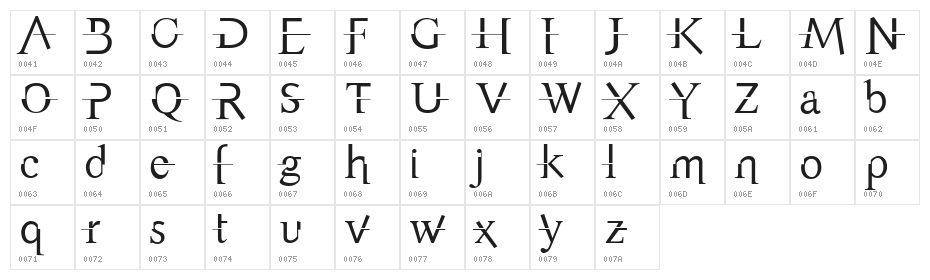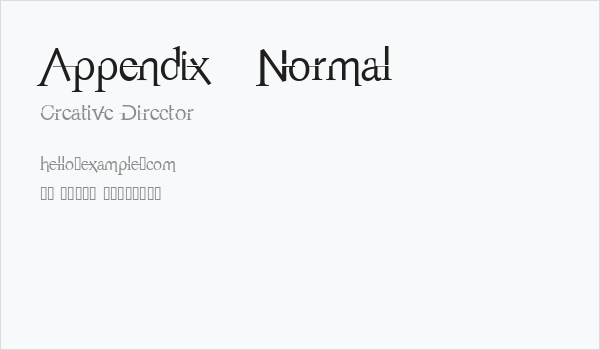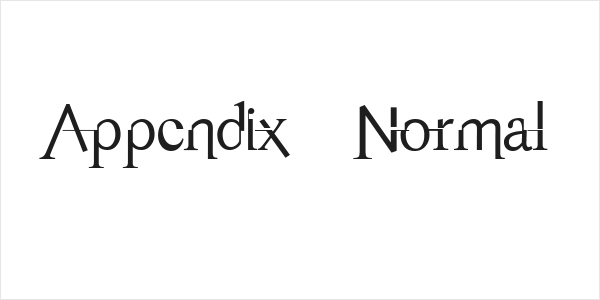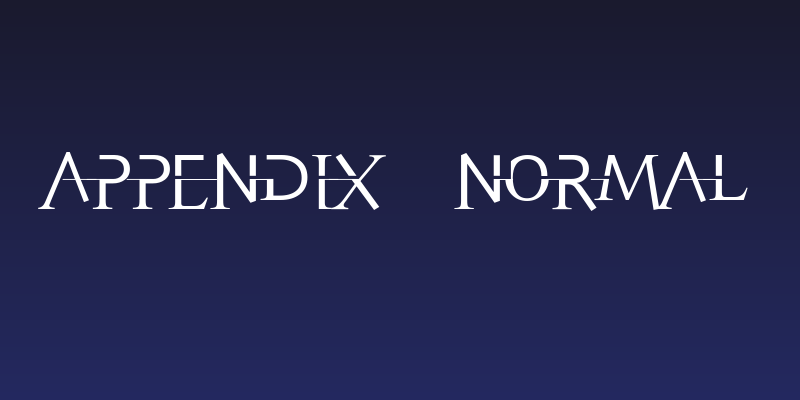
Appendix Normal Font
Appendix Normal Description
This font features a unique and modern design with a blend of geometric and abstract elements. The uppercase letters are characterized by their bold, angular shapes with distinct cutouts and overlaps, creating a futuristic and artistic appearance. The lowercase letters maintain a similar style, with a slightly softer approach, yet still retaining the geometric influence. The numbers and special characters follow the same design principles, ensuring consistency throughout the typeface. This font is ideal for projects that require a contemporary and edgy look, making it suitable for branding, advertising, and digital media.